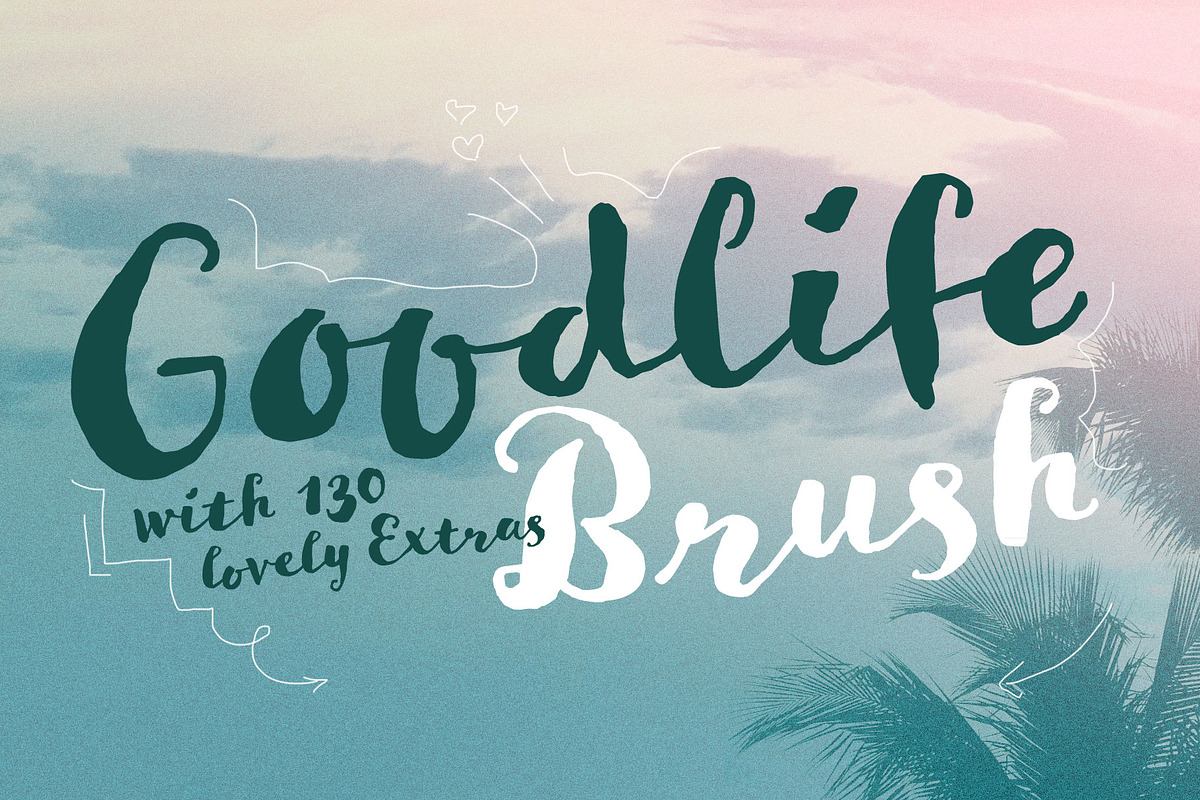
Goodlife Brush + Extras Free Download is a bold, hand-painted brush font full of energy, movement, and character. Perfect for creative branding, social media graphics, posters, product packaging, and artistic projects, Goodlife brings a raw, expressive style that feels both authentic and contemporary. The textured strokes and uneven flow add a handcrafted, spontaneous vibe to your typography.
What makes Goodlife Brush + Extras Free Download even more exciting are the included extras—such as swashes, paint splatters, or design elements—that let you create dynamic and visually rich layouts with ease. Whether you're aiming for a street-style edge or an artistic, boho feel, this font has you covered.